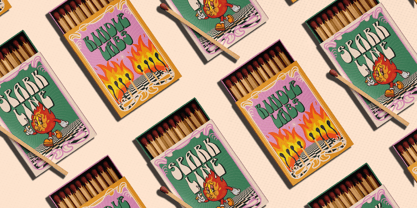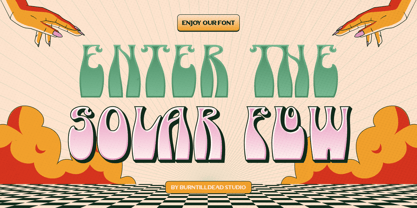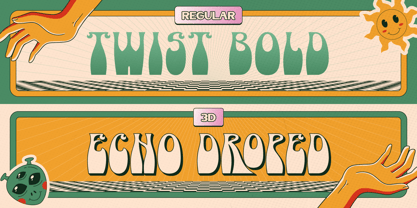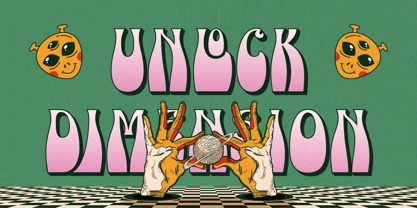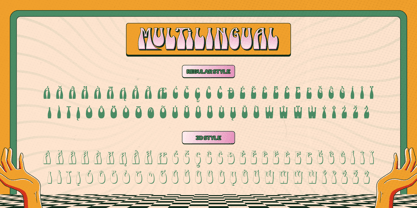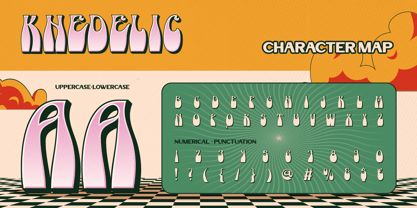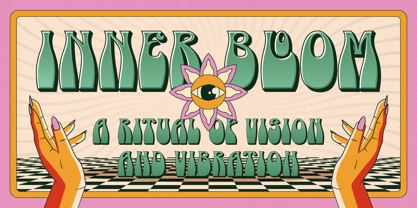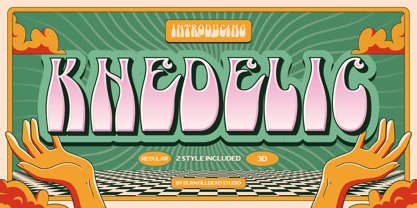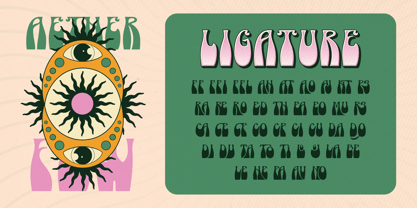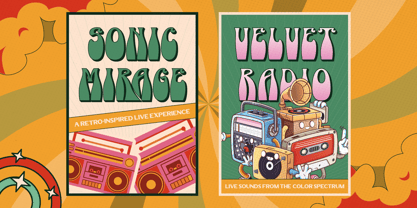
Khedelic
The Khedelic Font Family was designed by Eric Kurniawan and published by Burntilldead. Khedelic contains 2 styles and family package options. More about this family
Meet Khedelic! A trippy, eye catching font that screams retro futurism! A funky retro inspired font that brings the wild vibes of the 60s dan 70s! With its wavy shape, bold look and cool 3D effect, this font is perfect for design that need a groovy, psychedelic touch. It comes with 2 style: Regular and 3D. Khedelic best for music poster, festival flyer, vintage logos, fun social media post, band merch, album covers, concert posters, creative brands and so on.
Features:
• Uppercase & Lowercase
• Number
• Punctuation
• Ligatures
• Multilingual